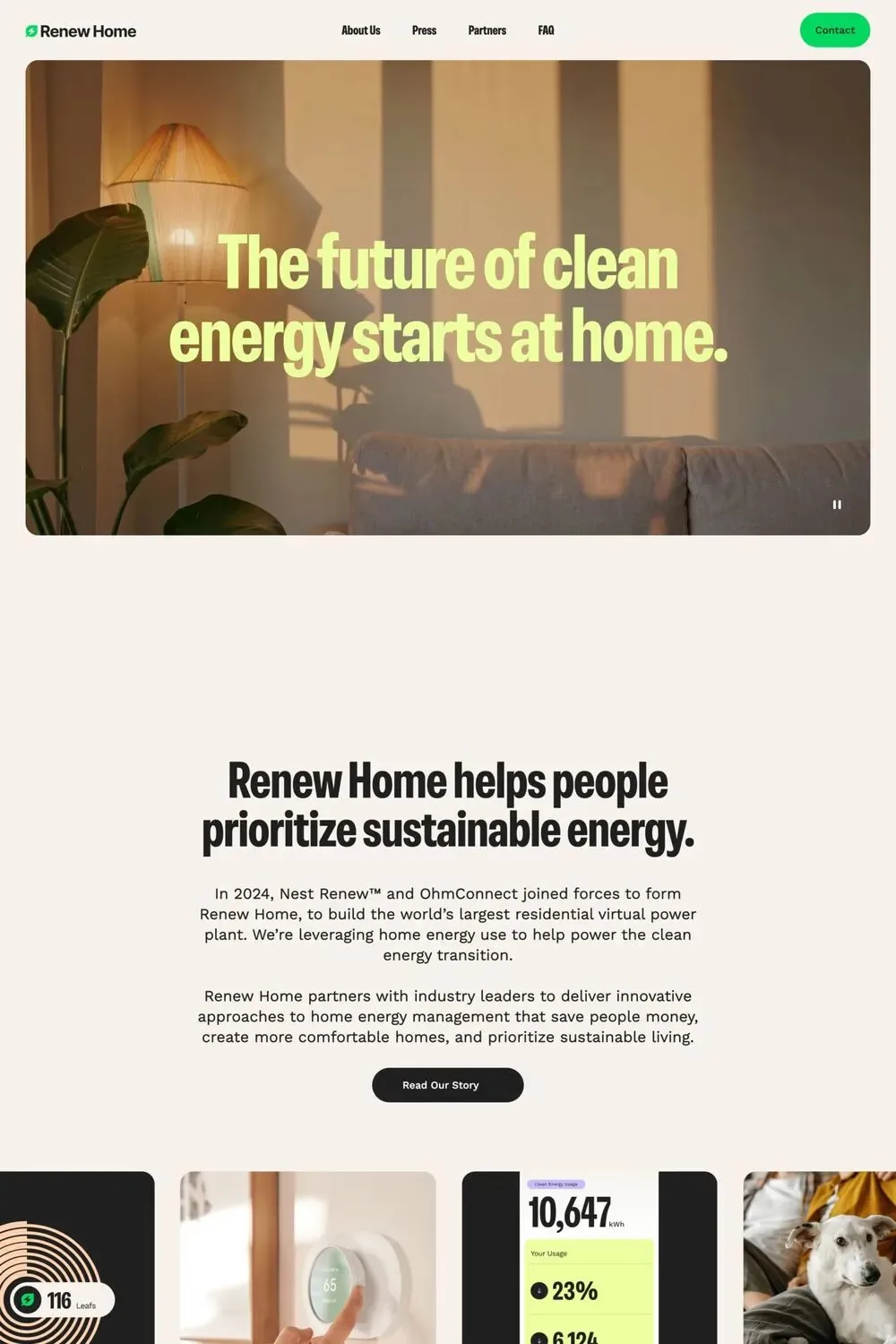
Neue Rational is a sans-serif typeface from Studio René Bieder.
While the Neue Rational family pays homage to its influential predecessors like Helvetica and Akzidenz, it proudly breaks free from the traditional modernist ideals of neutrality and functionalism. Rather than conforming to impersonal uniformity, it embodies the essence of a well-behaved mind, a trusted friend, and a steadfast long-term partner in design.
A1 features 1 website using Neue Rational. It leans towards Pastel, Big type, and Condensed font design styles, and it’s most often built with Webflow.